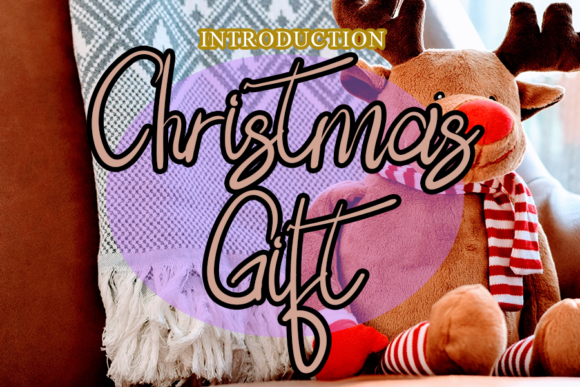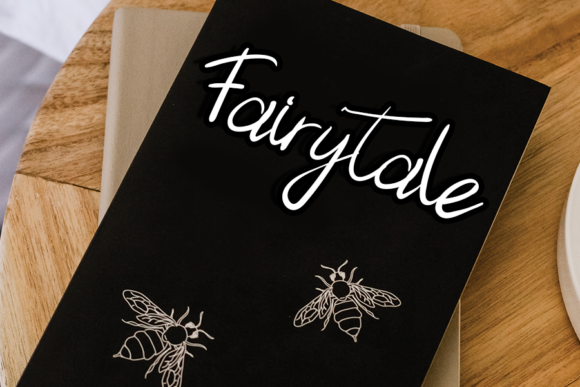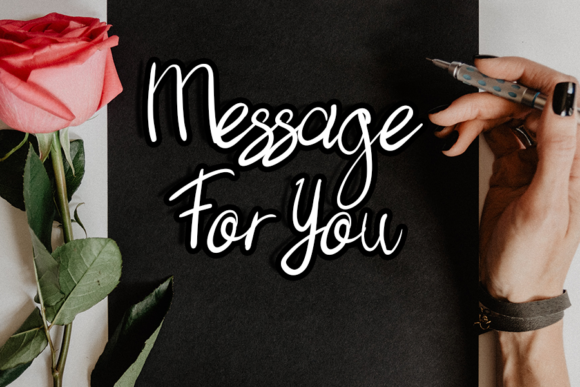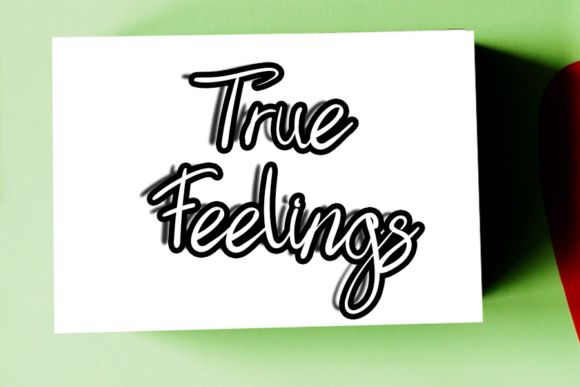
Unwrapping the Magic of Handwritten Typography
It’s that time of the year when we all start brainstorming ideas for the perfect holiday gift, and what better way to express our creativity than with a beautifully designed Christmas card or invitation? As I sat at my desk, surrounded by scraps of paper and pens, I stumbled upon the perfect font to capture the essence of the season – the Christmas Gift Font.
This quirky, handwritten font is a true gem for designers looking to add a personal touch to their projects. With its unique flair, Christmas Gift Font can elevate any design from ordinary to extraordinary, making it perfect for a wide range of applications, from greeting cards to merchandise.
Whether you’re a seasoned designer or a creative enthusiast, the Christmas Gift Font is sure to bring a smile to your face and inspire your next project.
Christmas Gift Font Key Features
- Font Family: Christmas Gift is a unique, hand-drawn font family designed specifically for the holiday season.
- Character Count: The font family includes over 300 characters, including uppercase and lowercase letters, numbers, punctuation, and special characters.
- Unique Characteristics: The font features intricate, hand-drawn illustrations of Christmas gifts, ornaments, and other holiday elements, adding a touch of whimsy and festivity to any design.
Christmas Gift Font Review
Overall, I was excited to dive into the Christmas Gift Font, hoping it would be the perfect addition to my holiday projects. Here’s what I thought:
- The font’s playful and whimsical nature captures the festive spirit of Christmas.
- The font’s versatility allows for a wide range of applications, from print to digital designs.
- The font’s bold and eye-catching style makes it perfect for headings and titles.
- The font lacks a clear and consistent character set, making it difficult to use for body text.
- The font’s lack of italic and bold variations limits its usability in certain design situations.
Overall, the Christmas Gift Font is a fun and festive addition to any holiday project. While it excels in certain areas, its limitations hold it back from being a truly versatile and practical font. With some refinement and expansion, I think it has the potential to be a real holiday hit.
Use the Christmas Gift Font for holiday-themed designs, gift tags, and cards. You can also use it for social media posts, blog articles, and email newsletters. Experiment with different font sizes, colors, and styles to create a unique look. To get the most out of the font, pair it with festive graphics and colors.